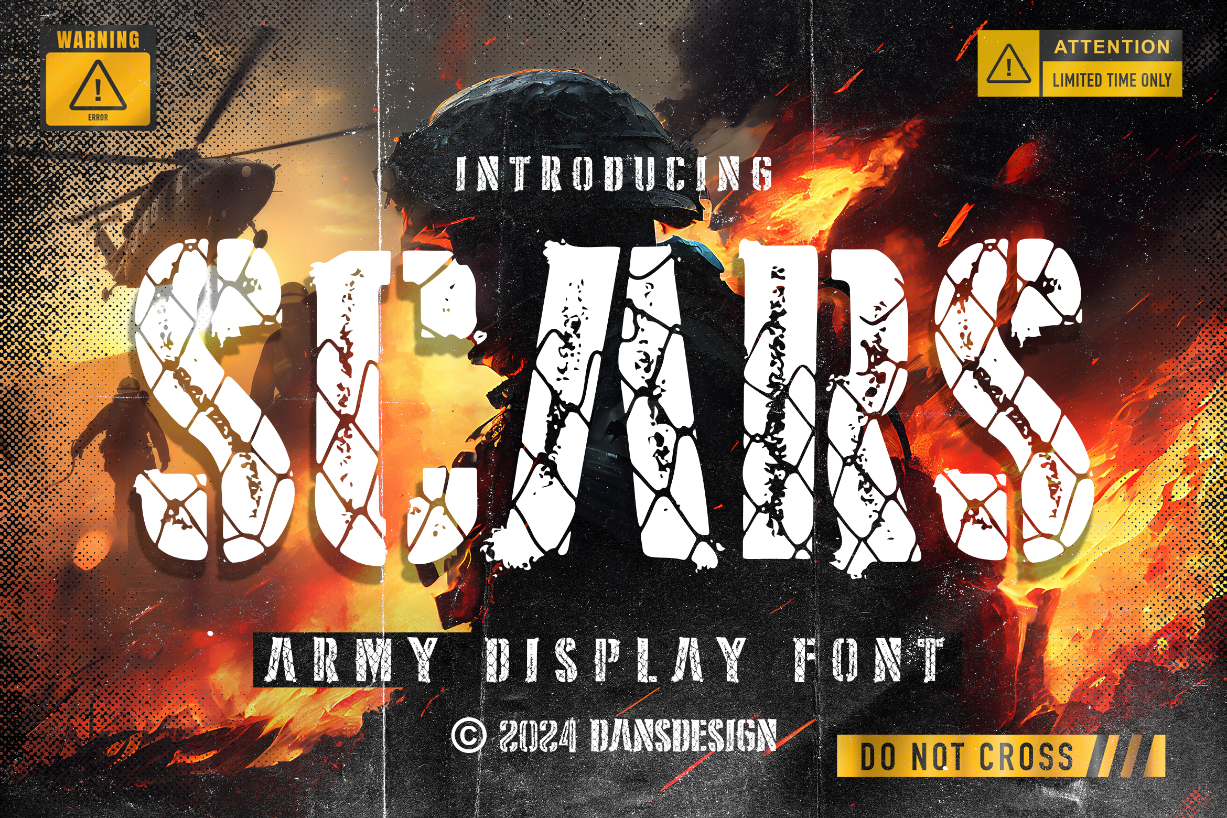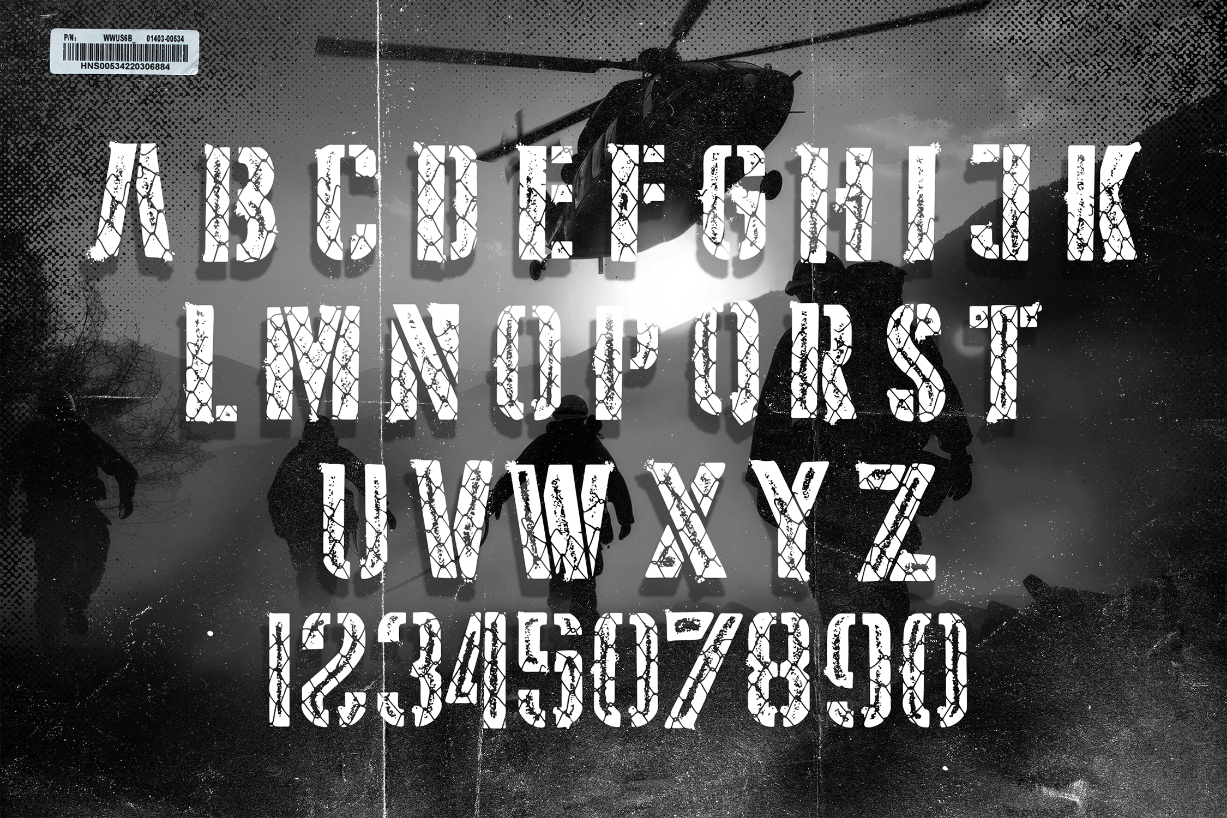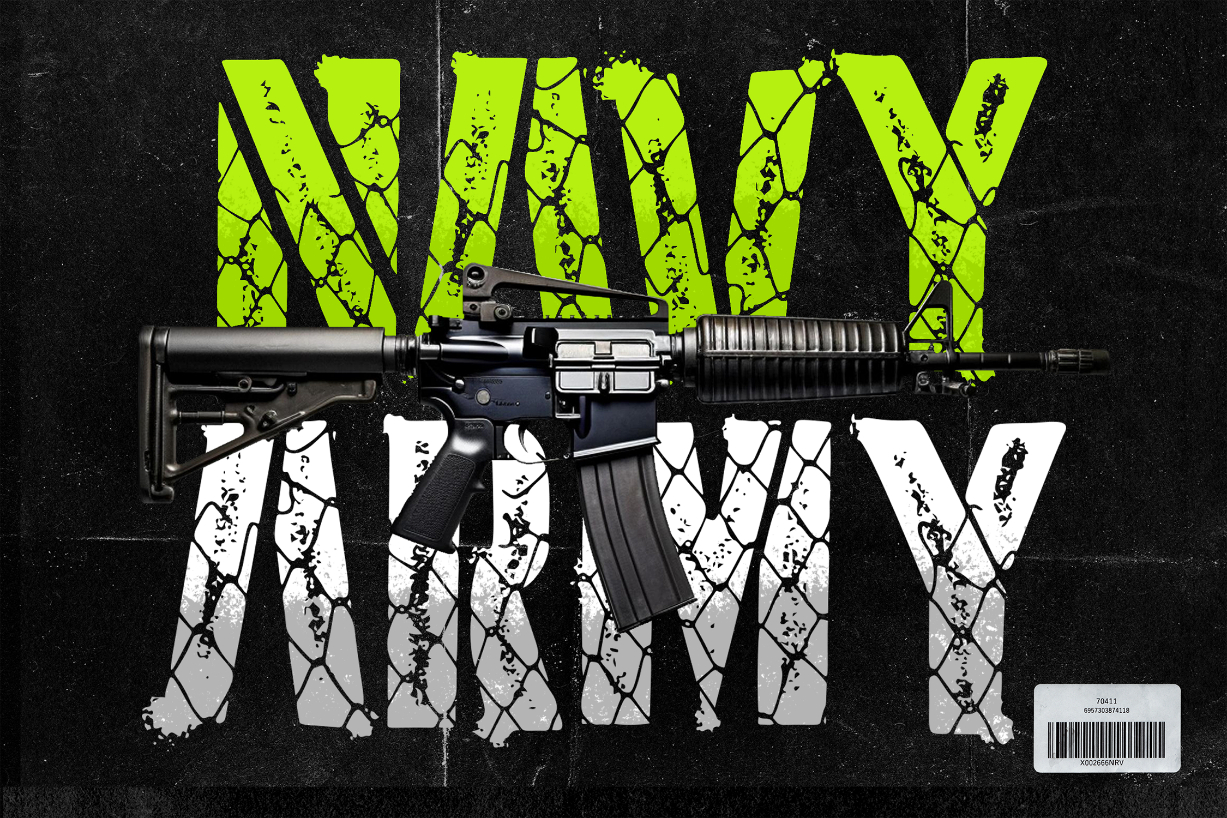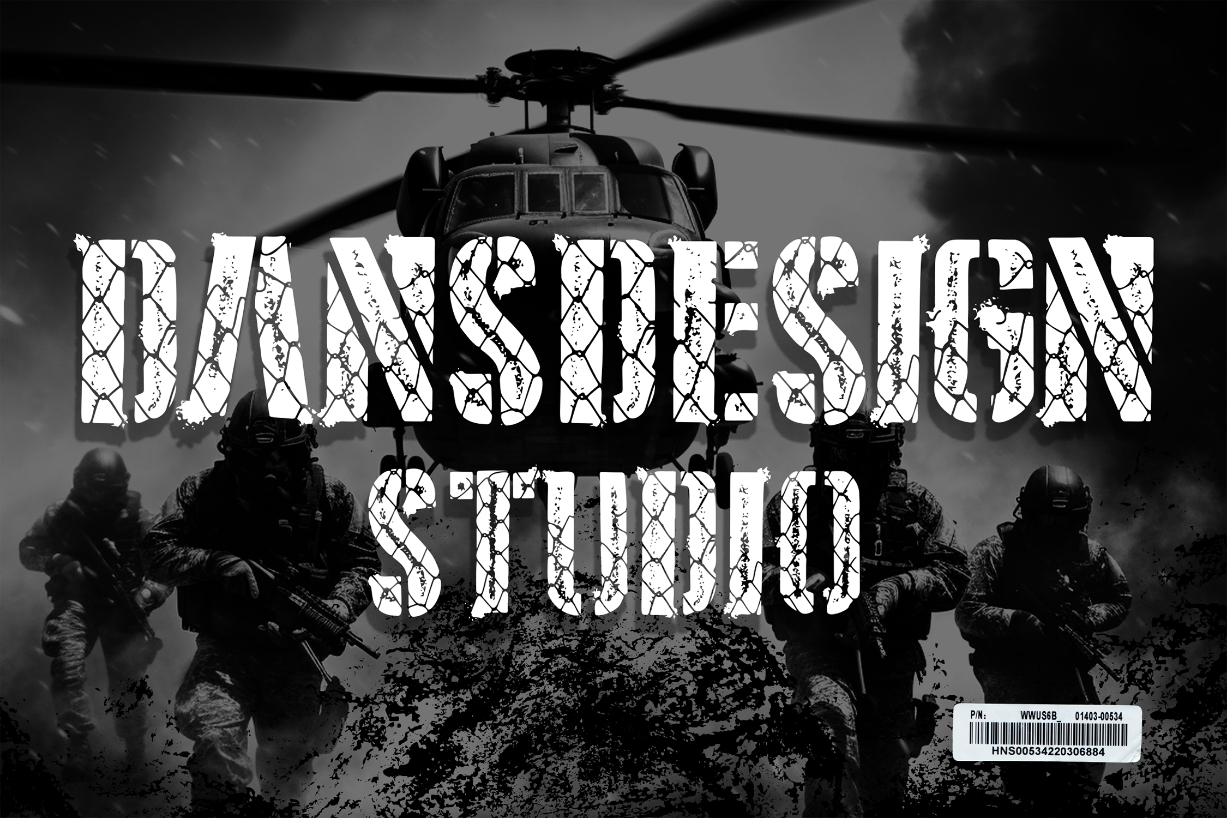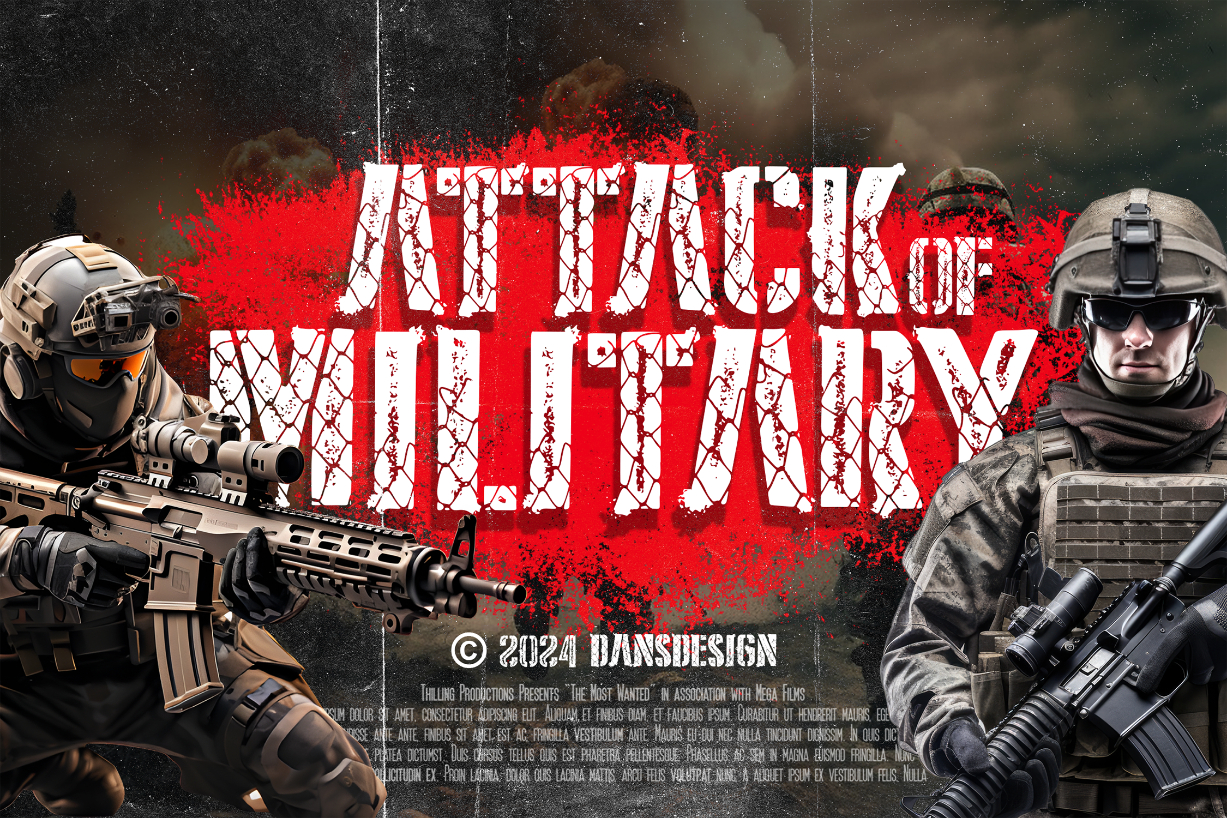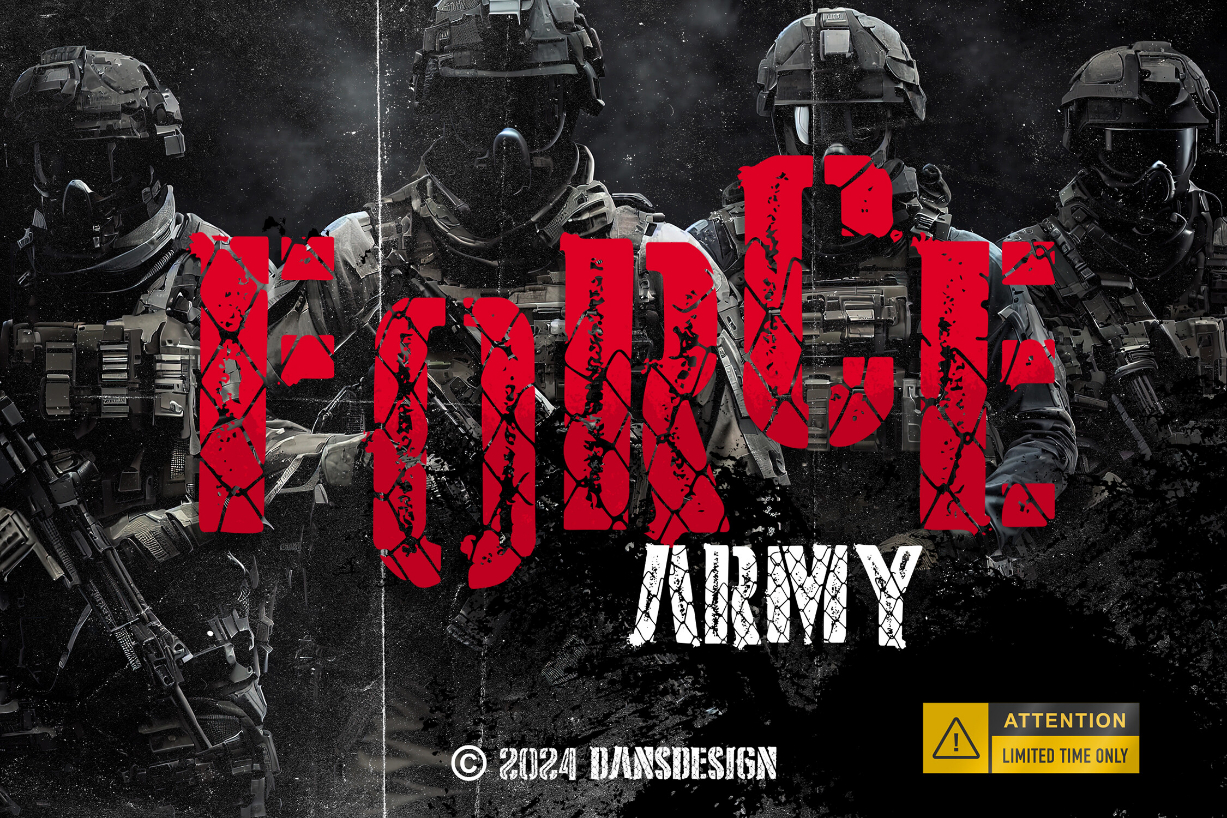
Scars Font
About Scars Font
SCARS is a bold Display Stencil Army font. It’s tough and eye-catching, perfect for making a statement in your designs. Whether you’re creating posters, logos, or anything else that needs a strong presence, SCARS has got you covered. With its stencil style, it adds a rugged edge to your text, giving it a unique and commanding look.